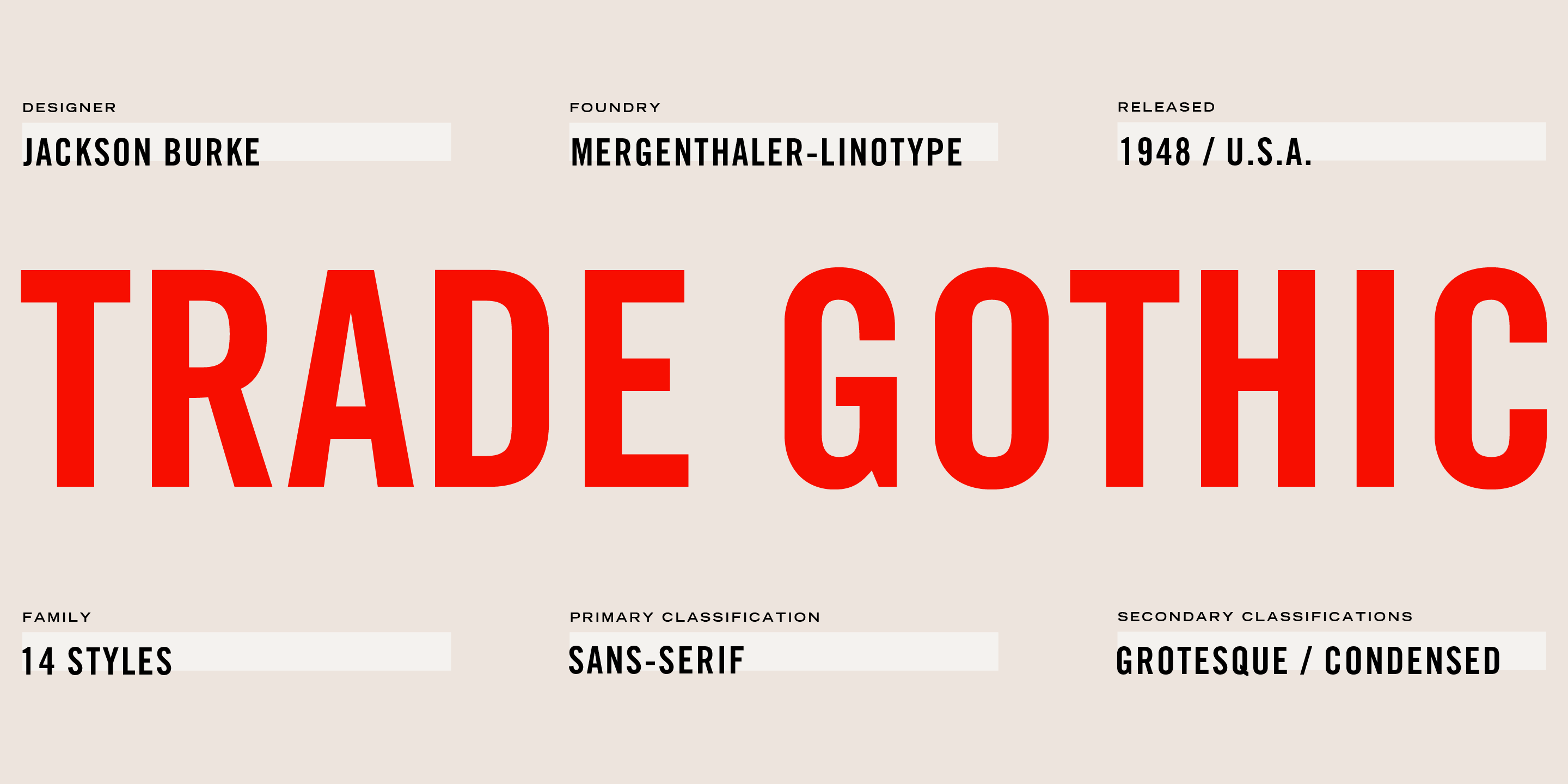
Trade Gothic Font is a robust and enduring sans-serif typeface, celebrated for its raw utility, straightforwardness, and powerful presence. Developed in the early 20th century, its slightly irregular, humanist forms give it a distinctive warmth and character often lacking in purely geometric sans-serifs. This makes it an excellent choice for newspaper headlines, advertising campaigns, corporate branding, and packaging design. Imagine it boldly announcing a breaking news story, providing an honest and reliable feel for a heritage brand, or adding a gritty, urban edge to streetwear apparel. This font is also superb for magazine layouts, event posters, and any project where clarity, impact, and an authentic, no-nonsense visual identity are key. It doesn't just display text; it communicates with an undeniable sense of authority and genuine character.
What makes Trade Gothic Font so exciting is its unique blend of industrial strength and subtle humanistic imperfections. Unlike the pristine uniformity of some other sans-serifs, its slightly varied character widths and unconventional touches give it a distinctive personality that feels both trustworthy and approachable. This characteristic has made it a favorite among designers seeking a typeface with a bit more grit and less sterile perfection. It’s a font that speaks with a clear, direct voice, making it ideal for brands and content creators who want to convey authenticity, reliability, and a powerful, no-frills aesthetic that resonates with real-world applications. Its enduring appeal has cemented its status as a true workhorse in the typographic landscape.
The Trade Gothic Font family is comprehensive, offering a wide array of weights and widths to provide extensive design flexibility and allow for nuanced typographic expressions. You can generally expect to find a rich spectrum of options to support diverse layout needs, including:
• Trade Gothic Thin
• Trade Gothic Light
• Trade Gothic Regular / Roman
• Trade Gothic Medium
• Trade Gothic Bold
• Trade Gothic Heavy
• Trade Gothic Black
• Trade Gothic Oblique / Italic (for most weights)
• Trade Gothic Condensed (in various weights)
• Trade Gothic Extended (in various weights)
• Trade Gothic Bold Condensed No. 20 (a particularly famous and widely used variant)